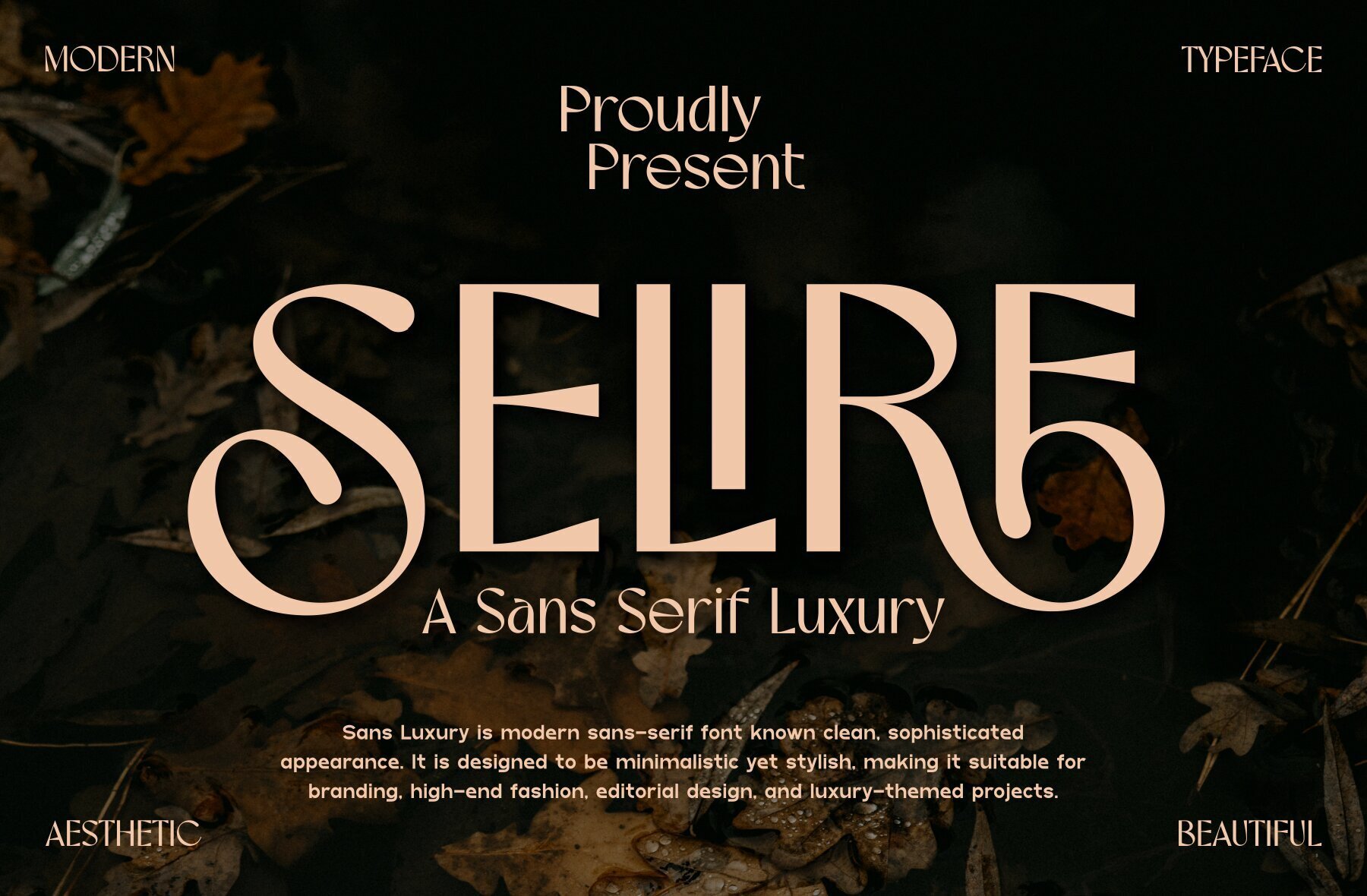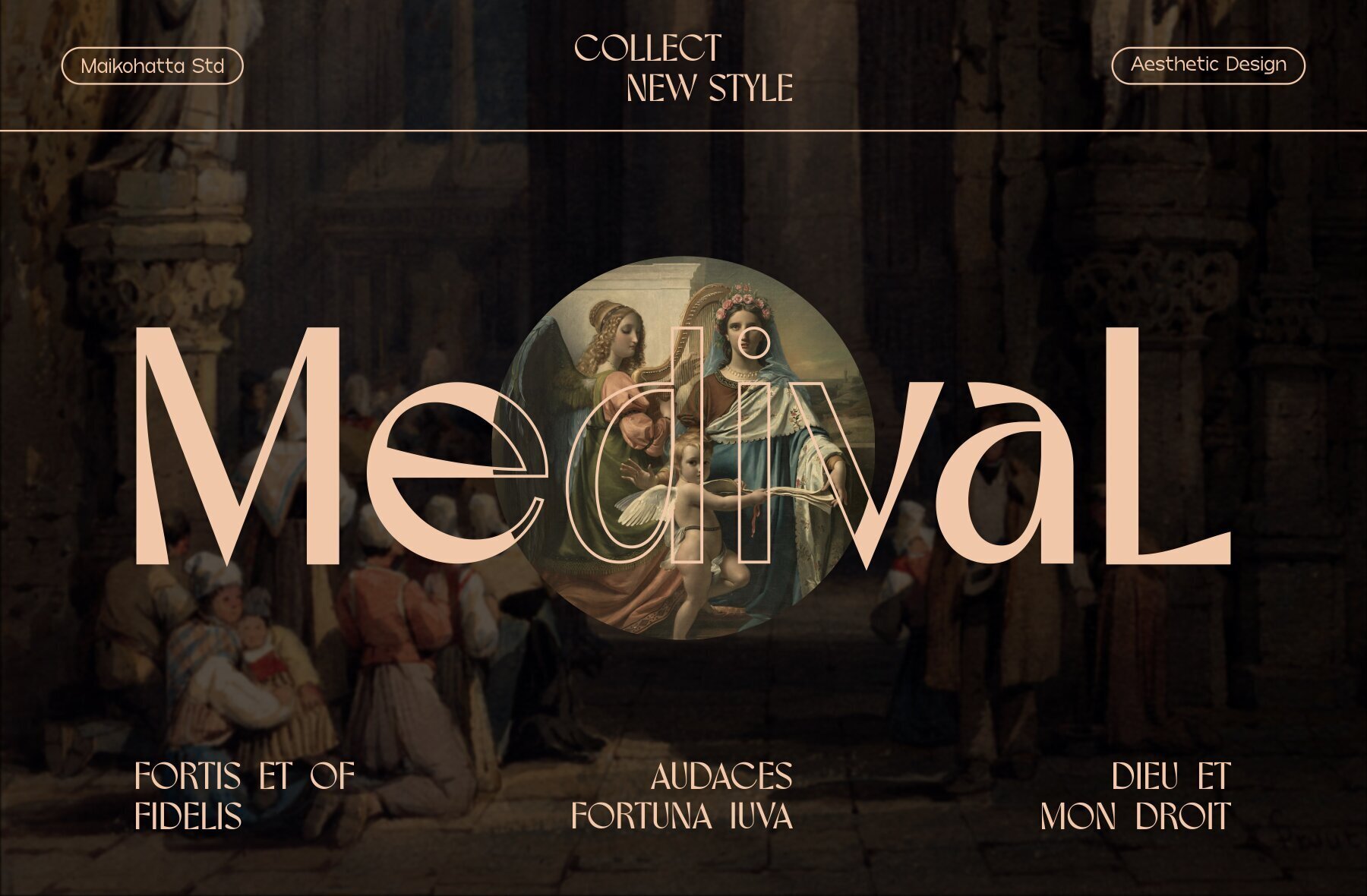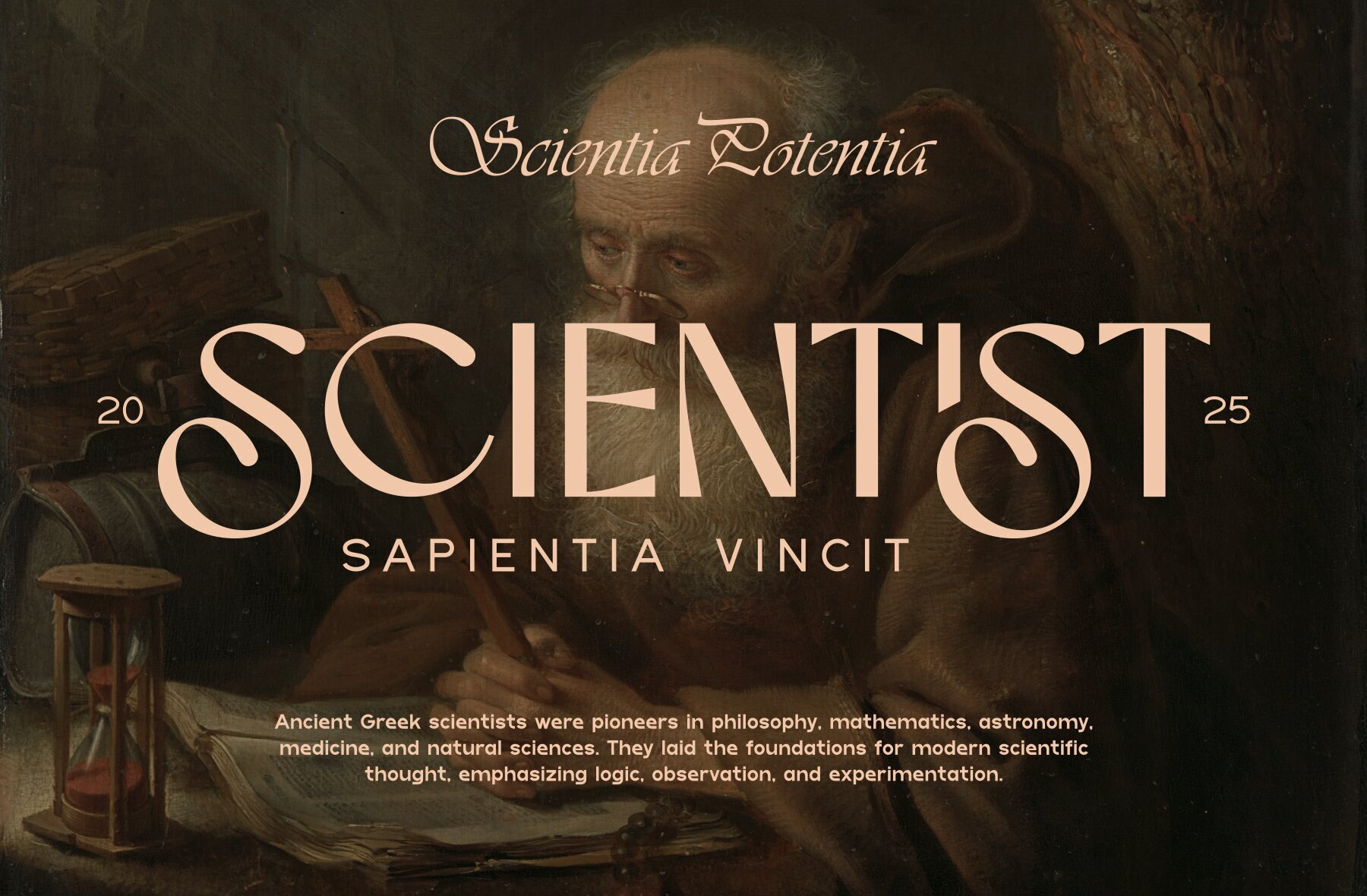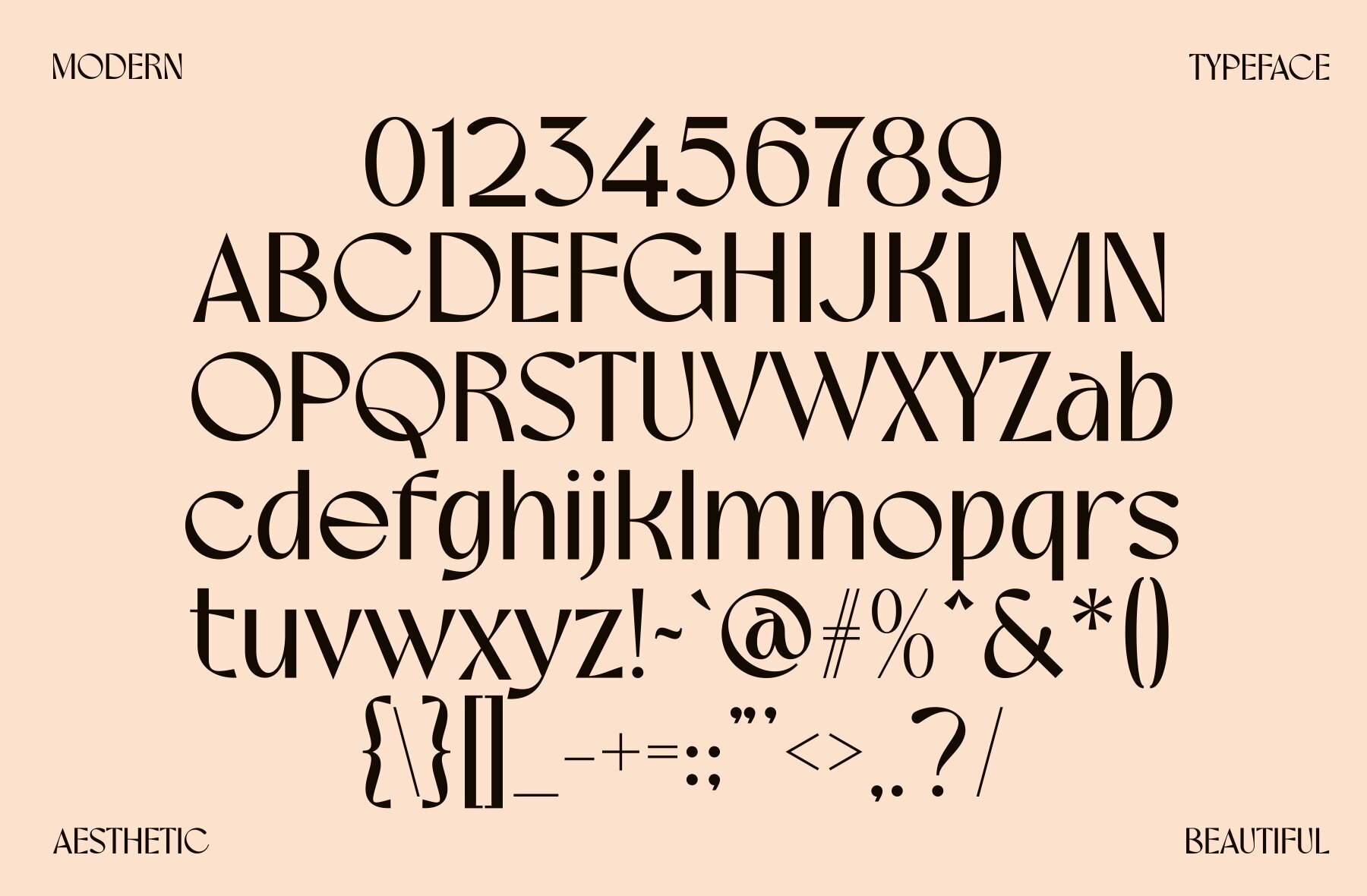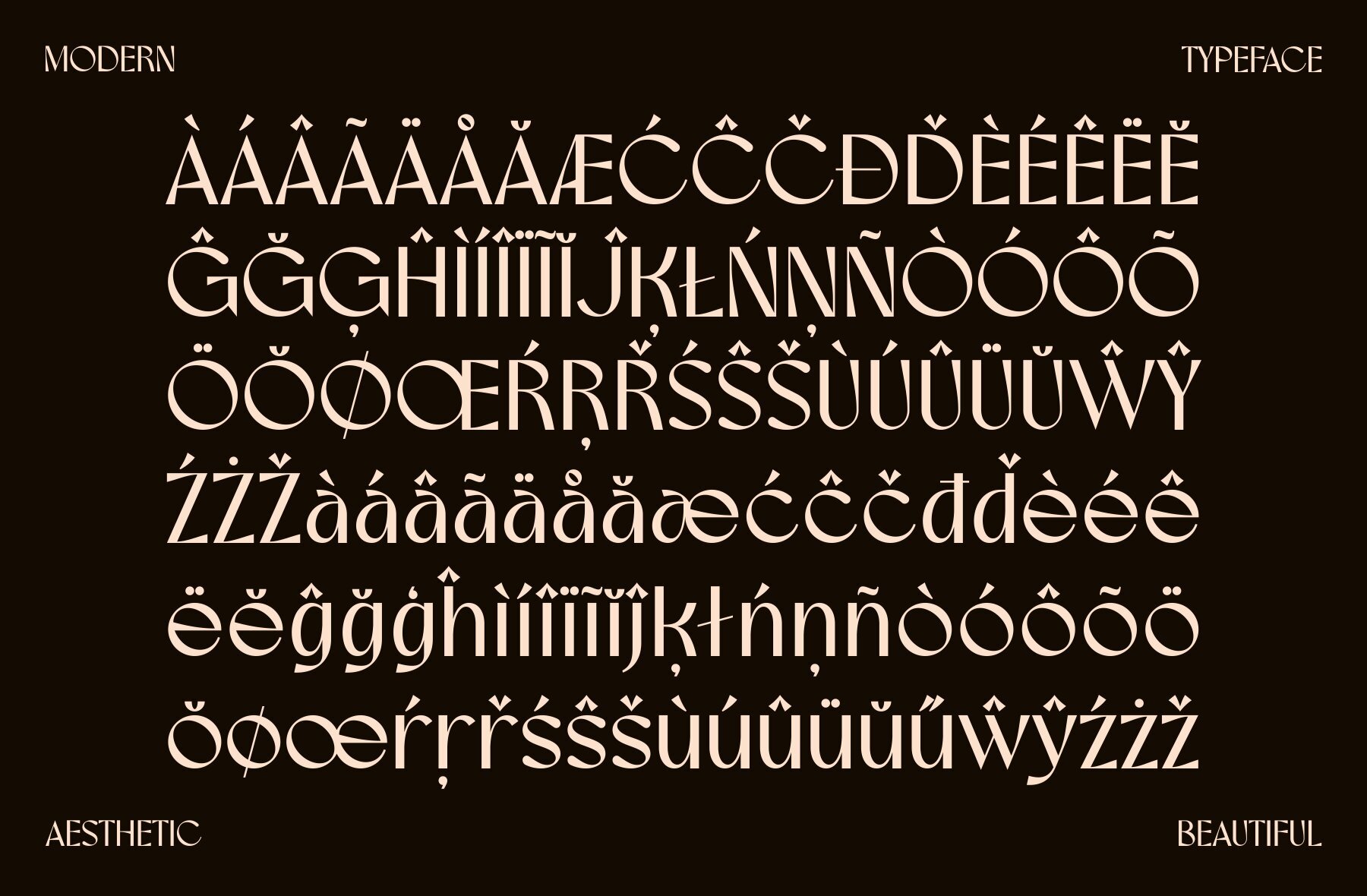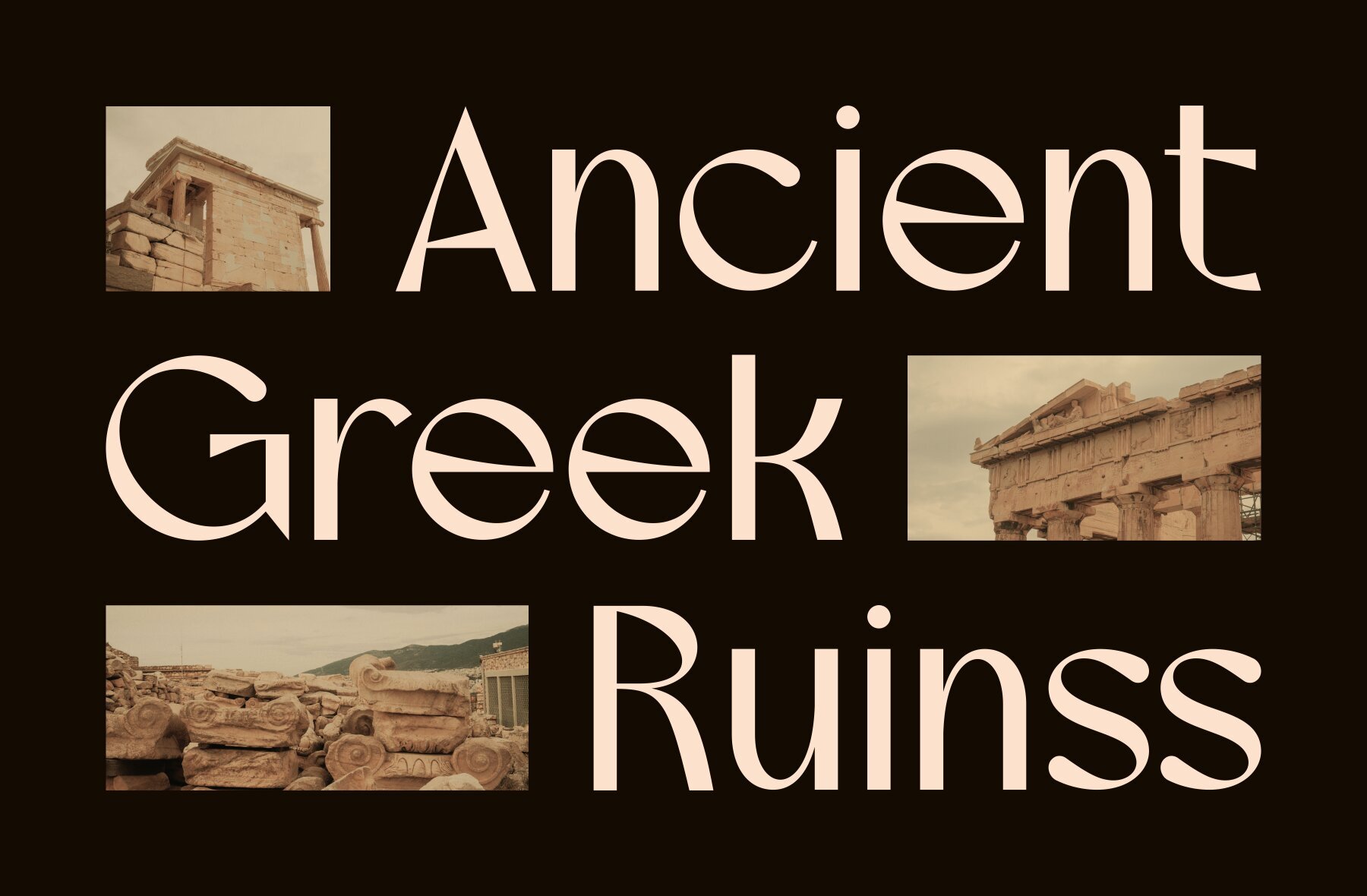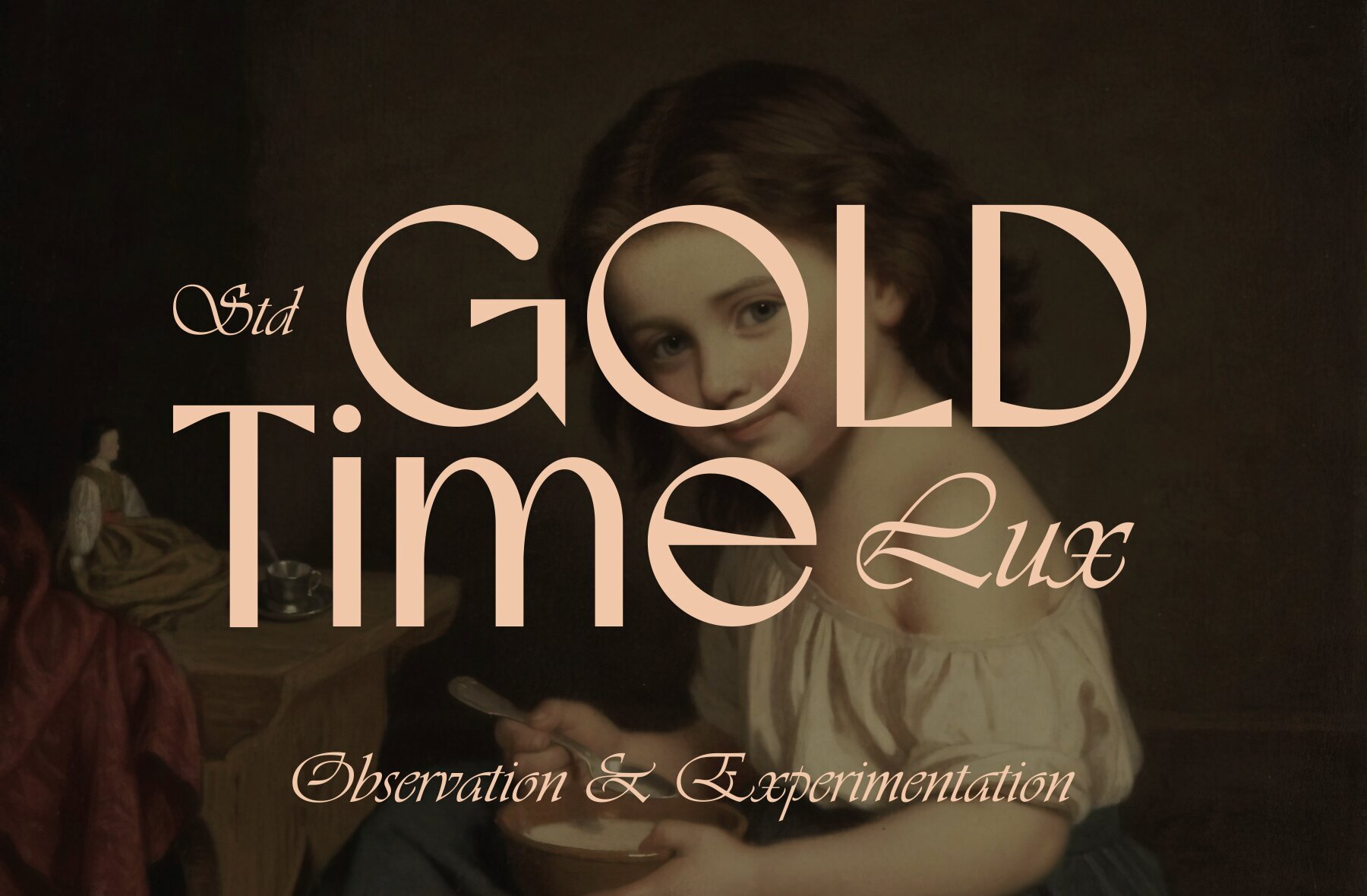
Selire Font
SELIRE
Selire is a font characterized by its luxurious and elegant impression, combined with firmness. It incorporates a series of design elements such as balanced thin and thick lines, gentle curves, and elegant, clean serifs. The sharp corners and fine details of each character enhance its aesthetic appeal and exude elegance.Selire: Sans Serif Font With Luxury and Elegance